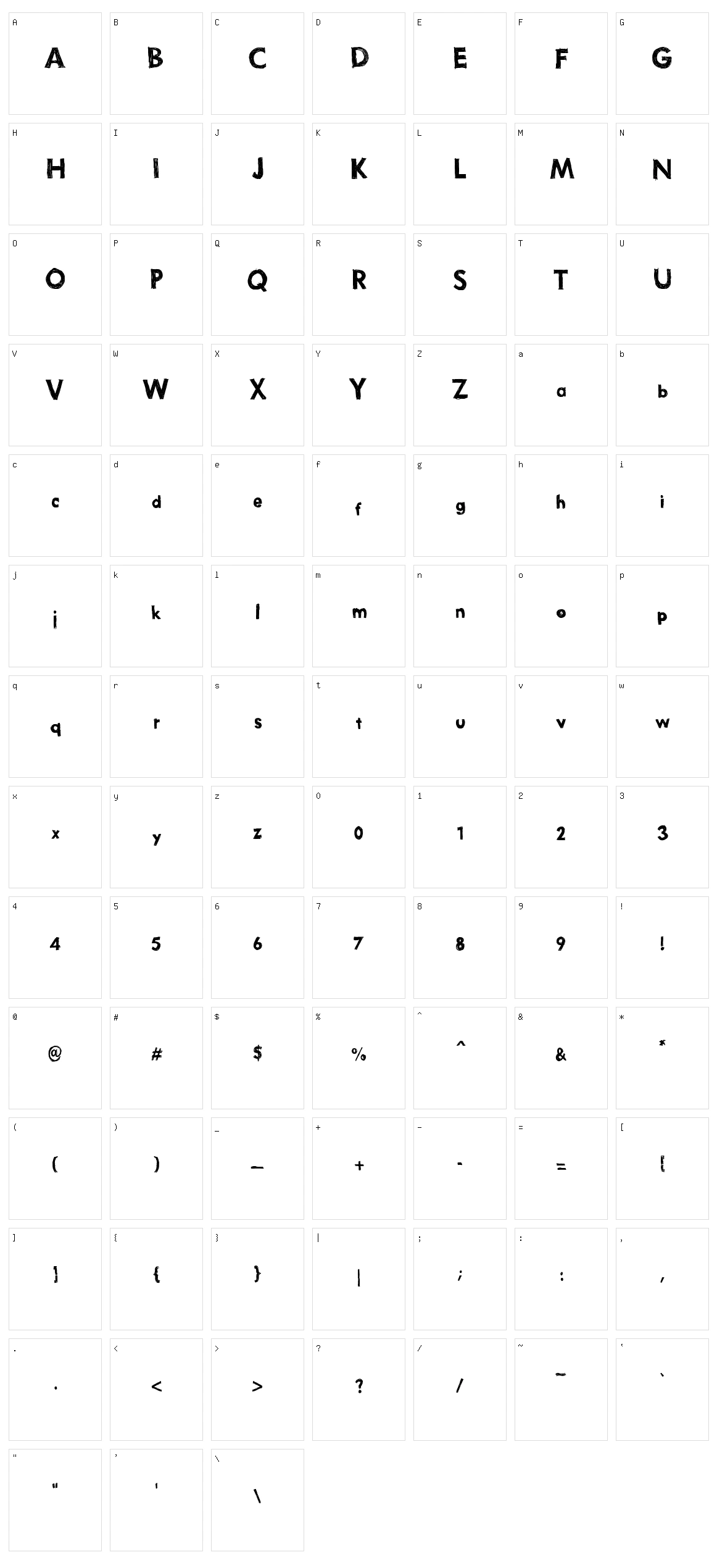
By Eric Wiryanata. oCTOBER 2006.
the name Thurston was taken after Thurston Moore.
But the design didn'tcame from any of Thurston Moore related, I just thought that the name would fit the font nicely
The font was sketched using the Futura font as inspiration.
I embed some illustration in the font.
Note#2: This typeface is ideal for logos and general design.
It isn't very suitable to be used with word-processors as it lacks some symbols and letters.